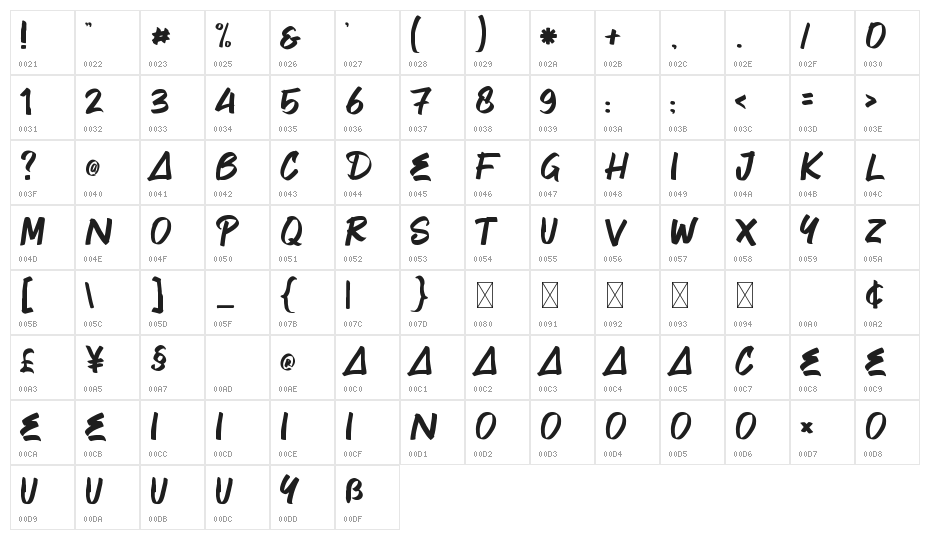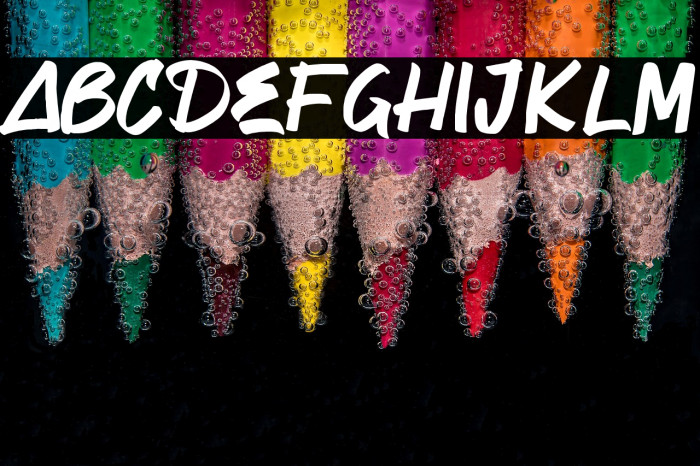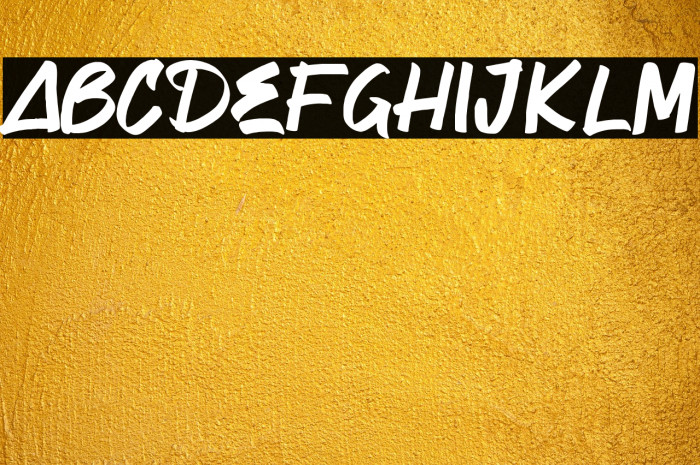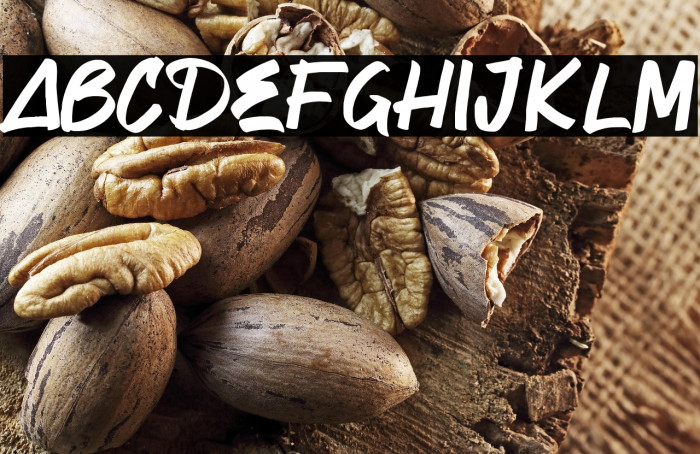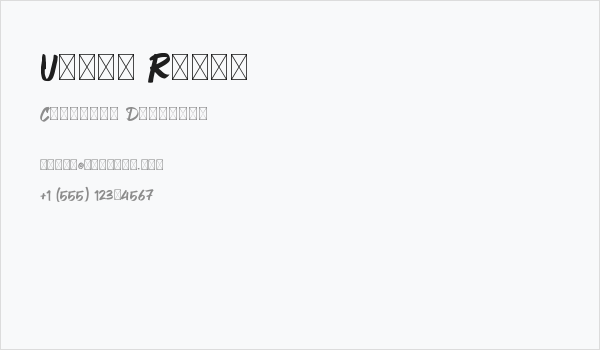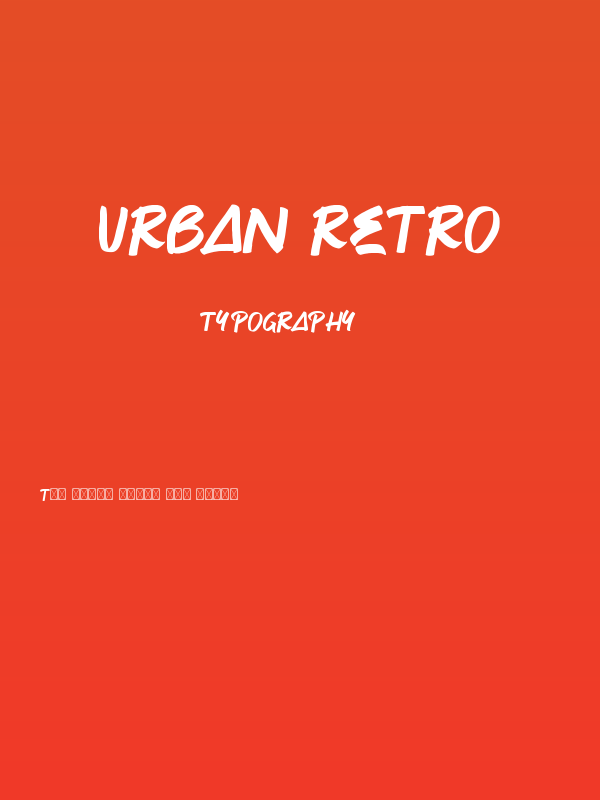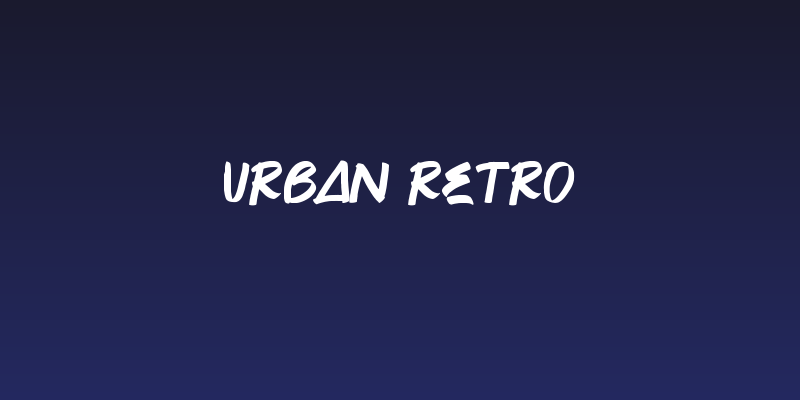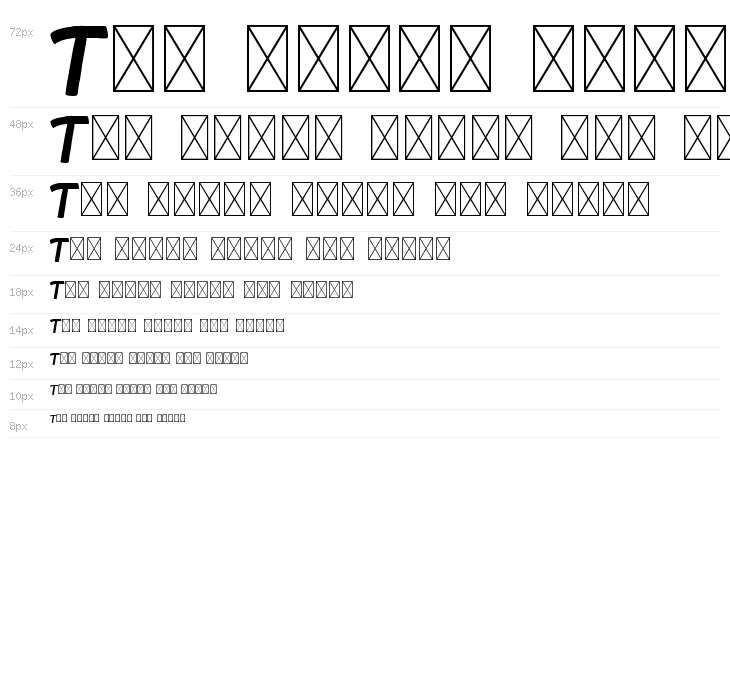
Urban Retro Font
Urban Retro Description
This font exudes a bold and energetic vibe, characterized by its thick, brush-like strokes that give it a dynamic and urban feel. The letters are slightly slanted, adding a sense of motion and fluidity. The uppercase and lowercase letters maintain a consistent style, with rounded edges and a playful, informal appearance. The numbers and special characters follow the same aesthetic, ensuring a cohesive look across all glyphs. This font is perfect for projects that require a lively and modern touch, such as street art-inspired designs or youthful branding.
| Overall Style | Urban, Modern, Energetic |
| Proposed Projects | Ideal for street art designs, youthful branding, posters, and apparel. |